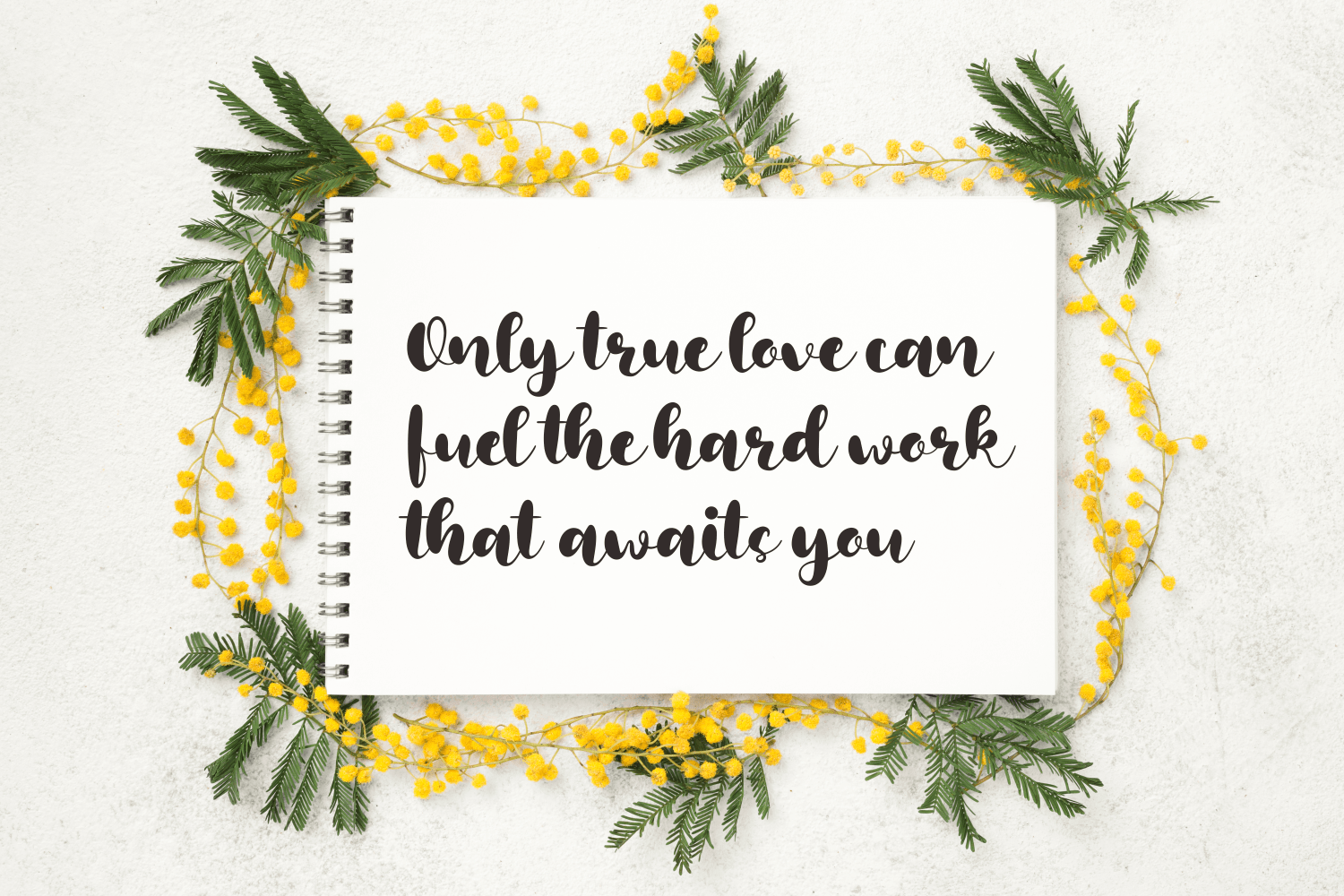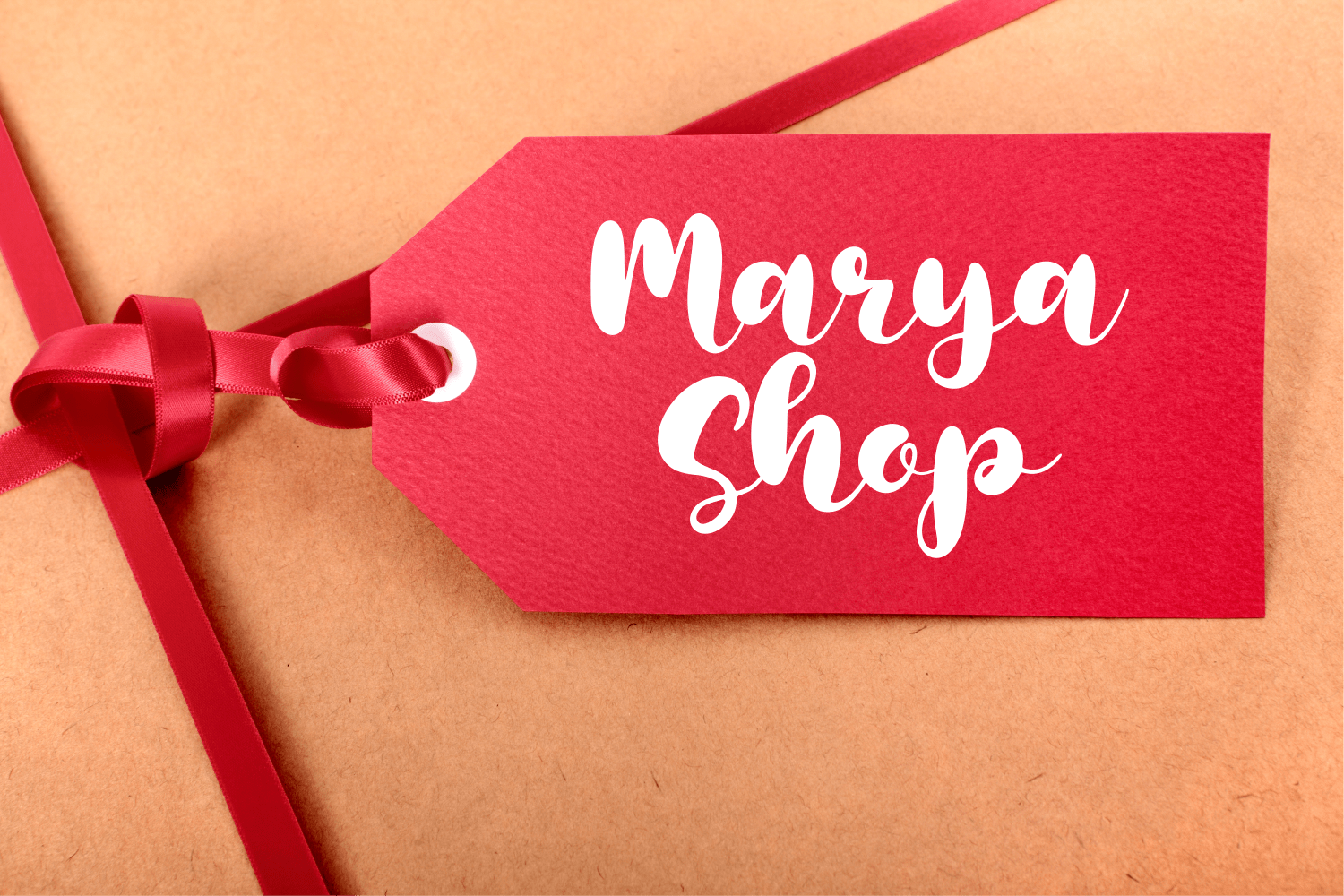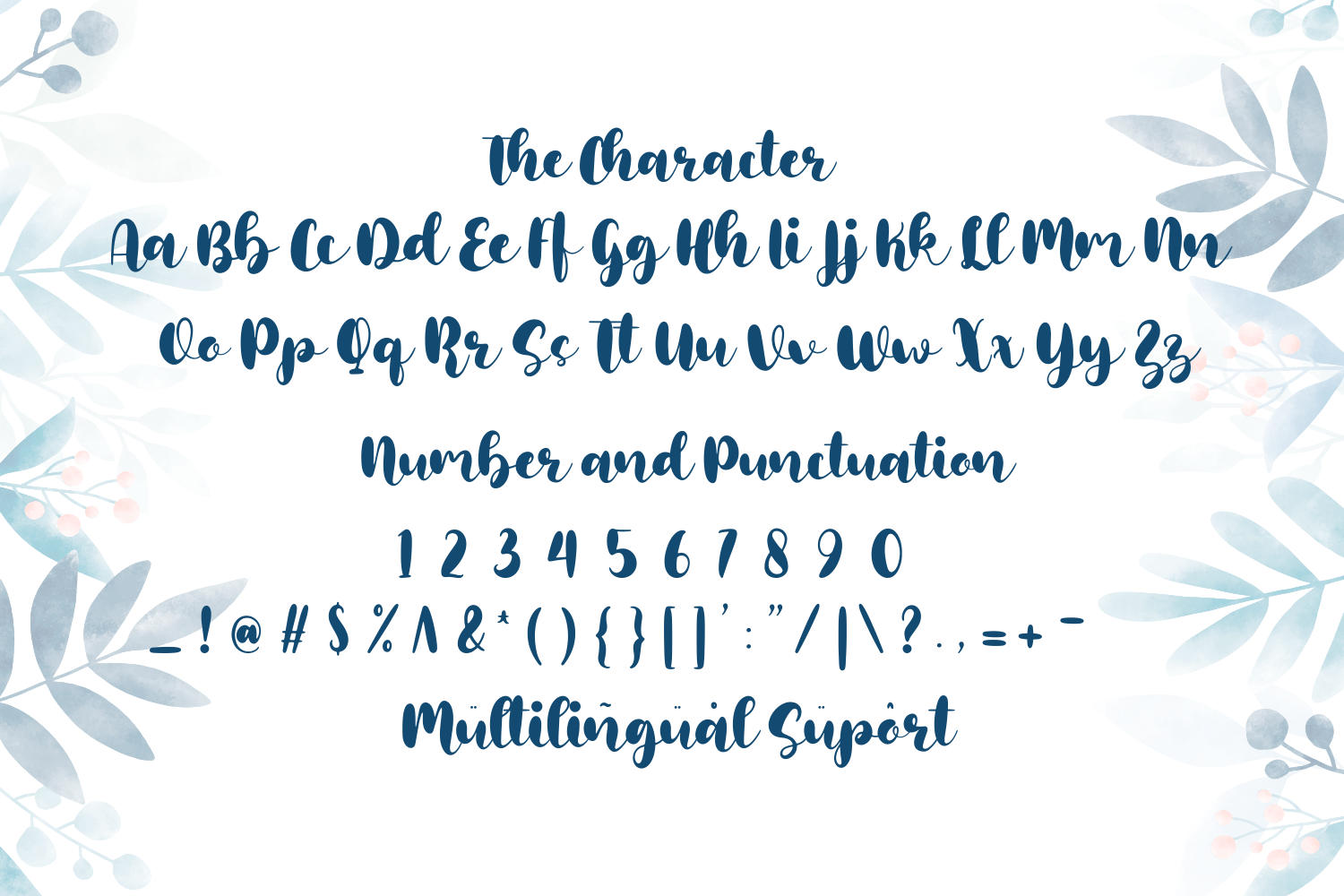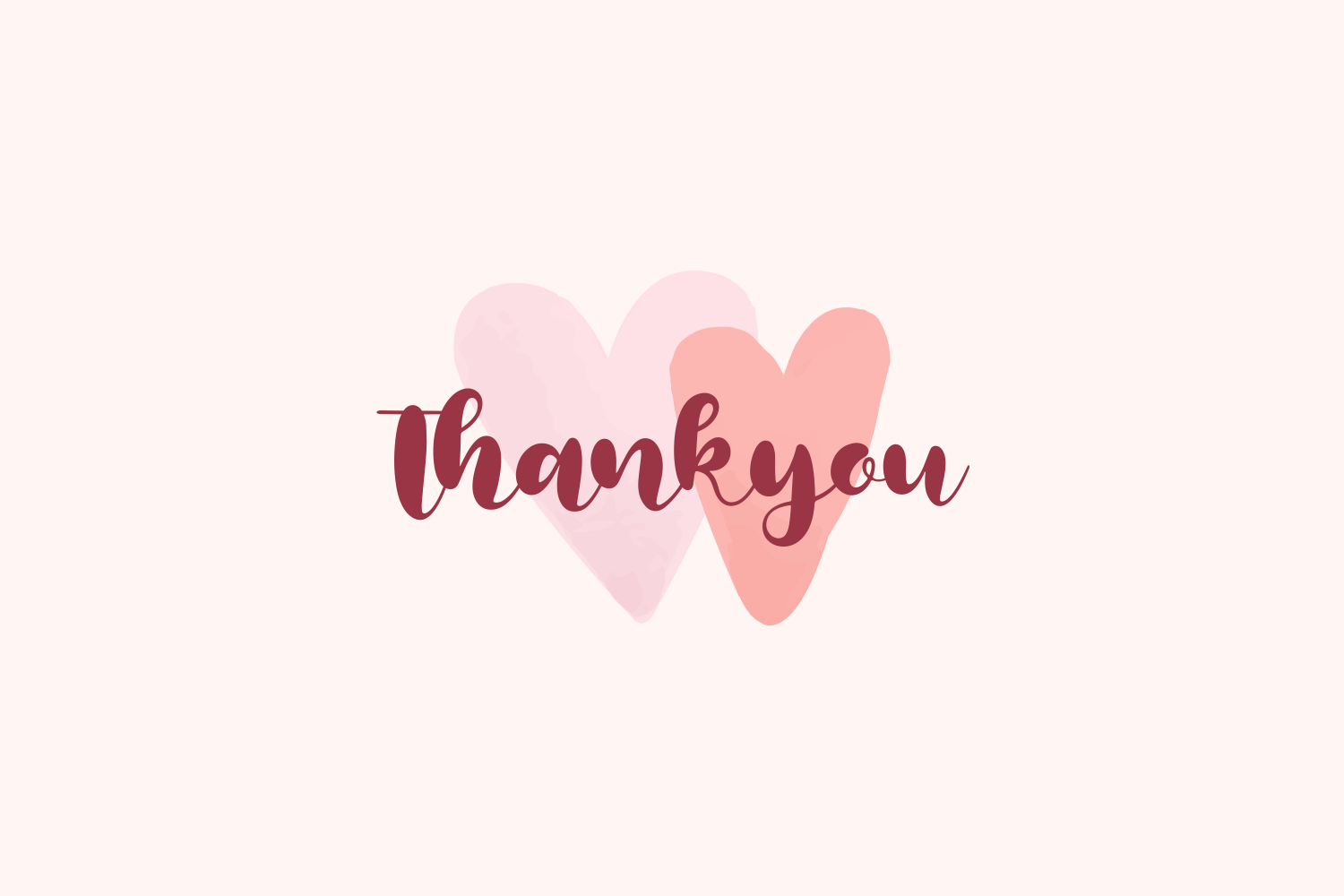
Ratumba Font
Ratumba Script Font is a delicate, elegant and flowing handwritten font. It has beautiful and well balanced characters and as a result, it matches a wide pool of designs. Add it to your most creative ideas and notice how it makes them come alive!